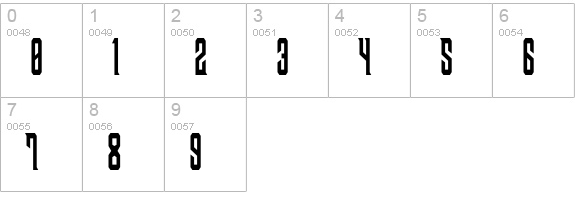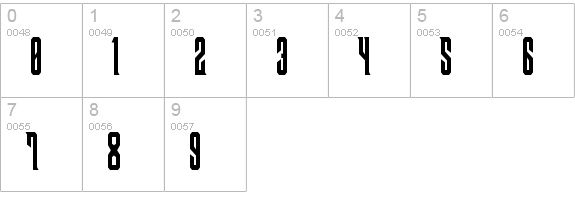
Introducing Shadow of Xizor, a captivating and versatile font that will transport your designs to a world of enchantment and intrigue. With its mysterious and alluring style, Shadow of Xizor is perfect for adding an air of mystique to your projects. This font's unique combination of bold and elegant letterforms creates a mesmerizing effect, capturing the essence of the unknown and unleashing your creativity. Its carefully crafted shadows and curves bring a touch of depth and sophistication to any design, making it ideal for a wide range of applications, from logo design to branding, packaging, and beyond. But what sets Shadow of Xizor apart is not just its striking aesthetics, but also its accessibility. This font is completely free, allowing you to elevate your designs without breaking the bank. You can easily download Shadow of Xizor for free at FontsMarket.com, where it is readily available for all your design needs. Whether you're a seasoned designer or just starting your creative journey, Shadow of Xizor offers endless possibilities to bring your ideas to life. Its versatility and captivating allure make it a must-have font in your collection. So, why wait? Download Shadow of Xizor for free today and let your designs embark on a captivating adventure.